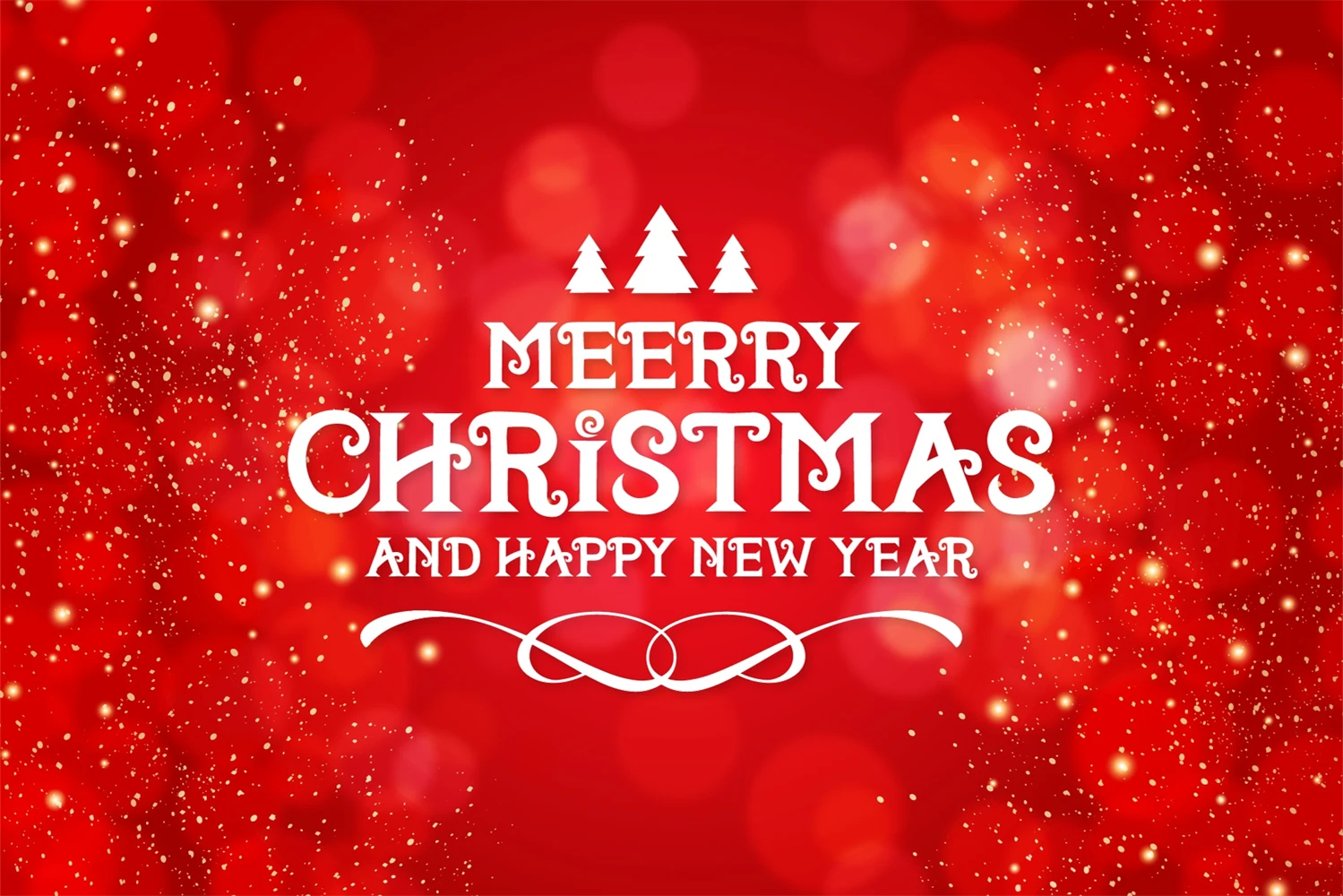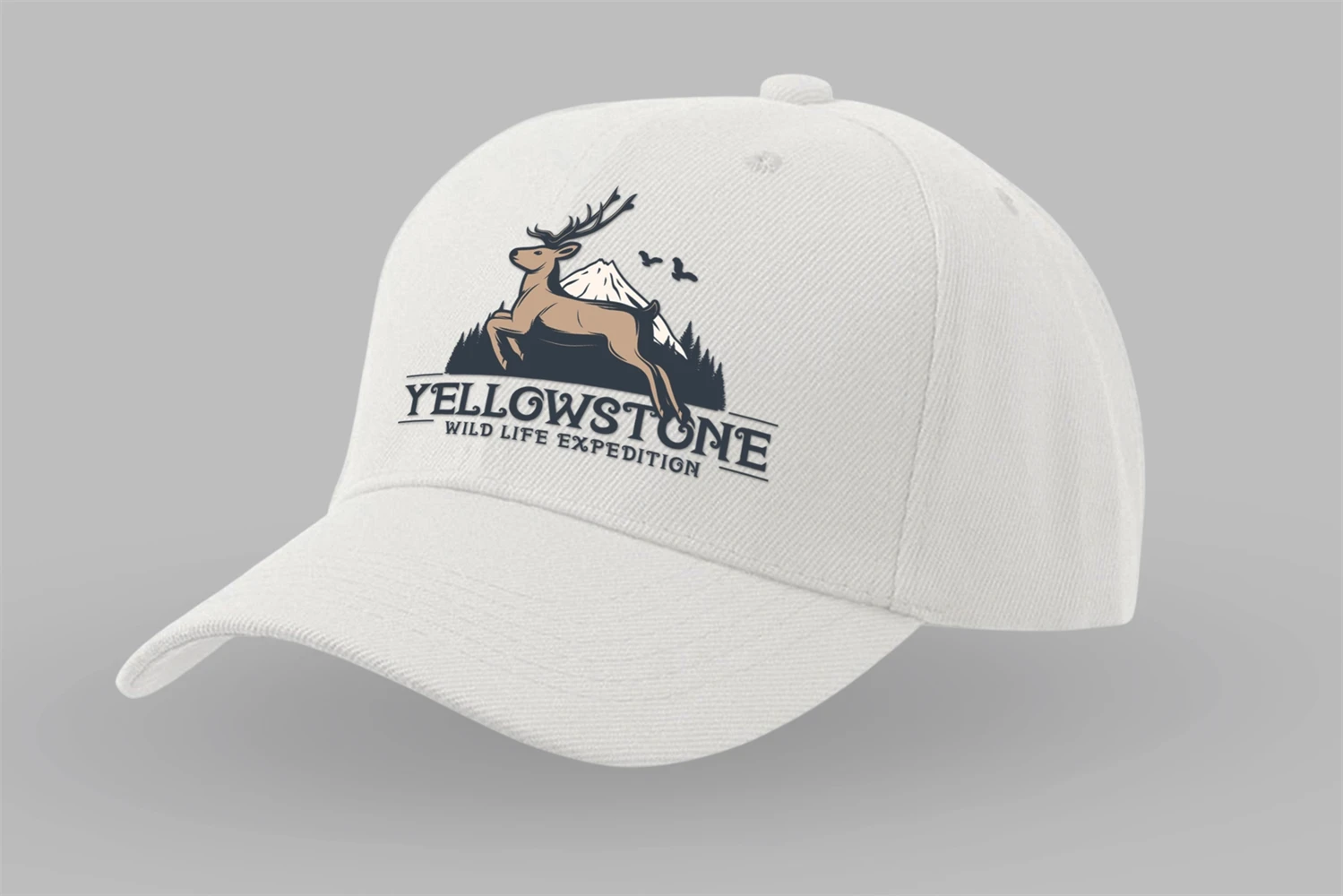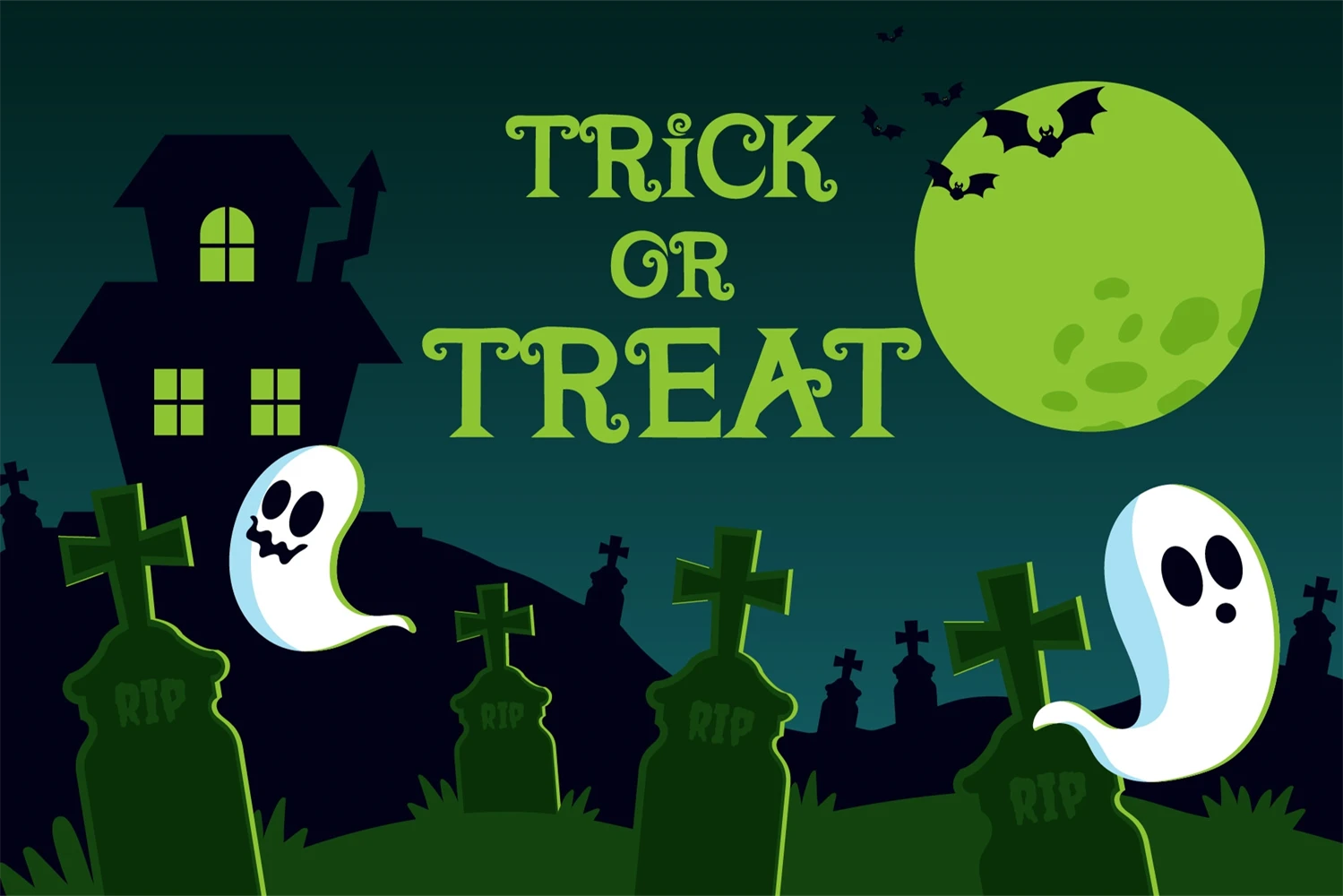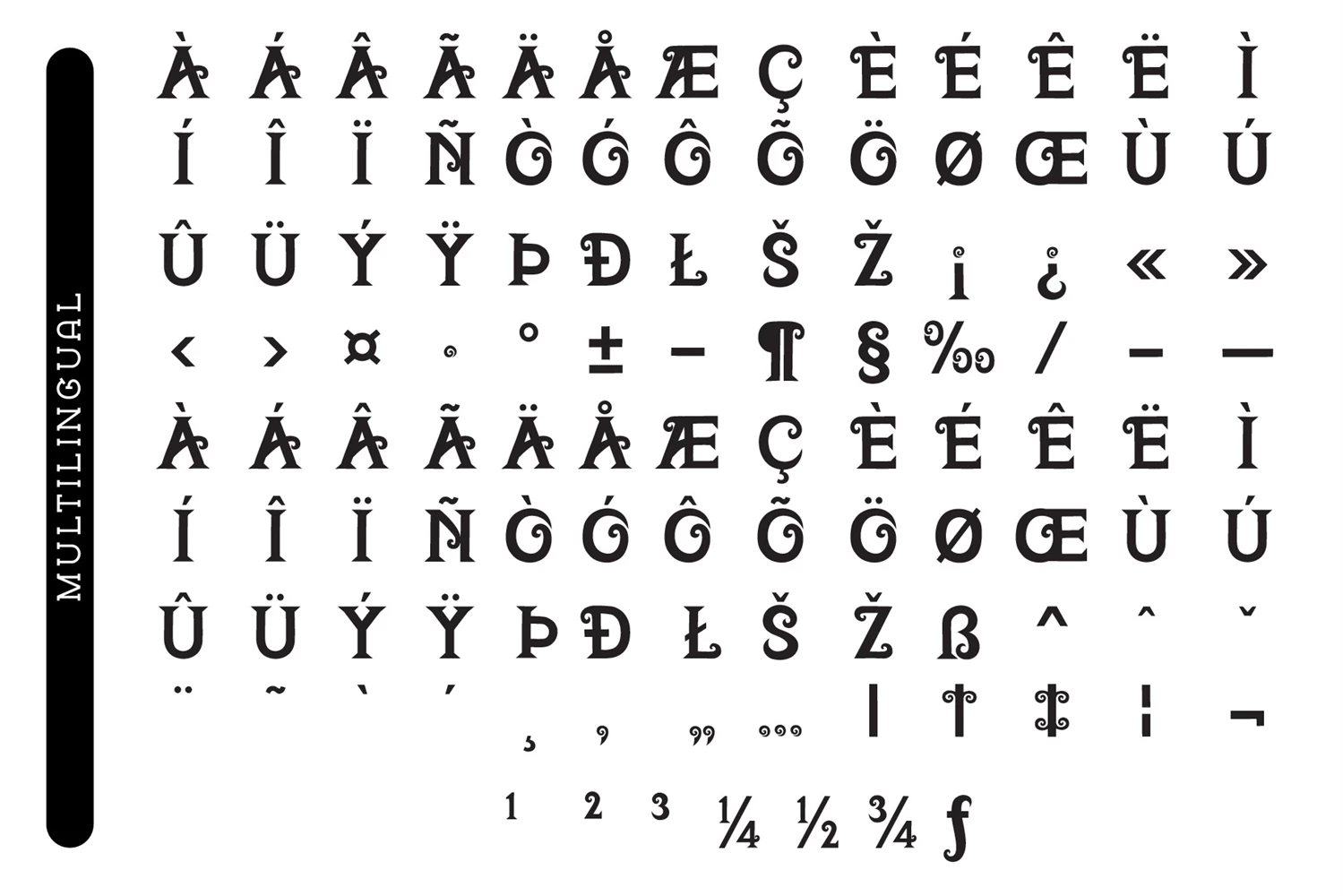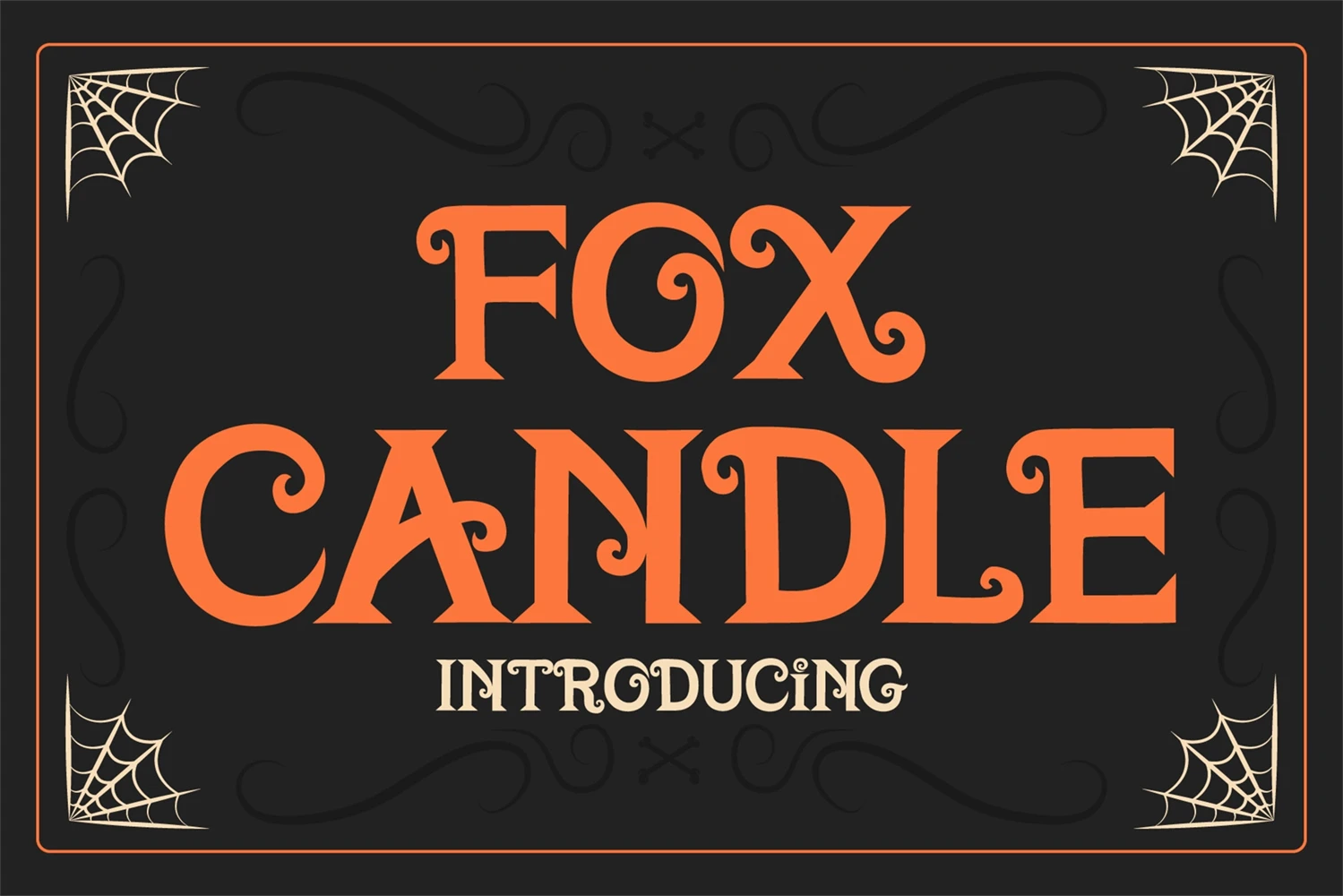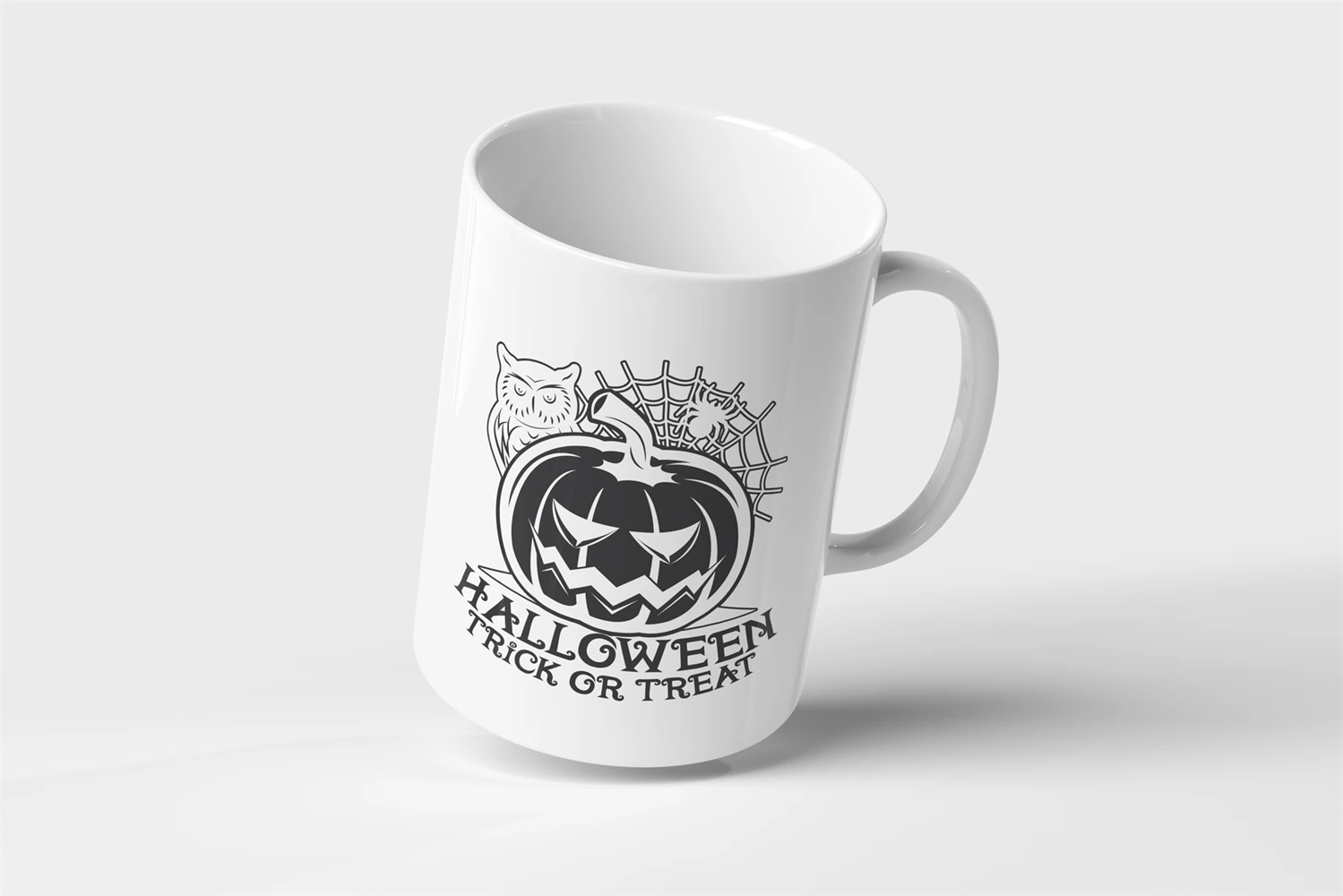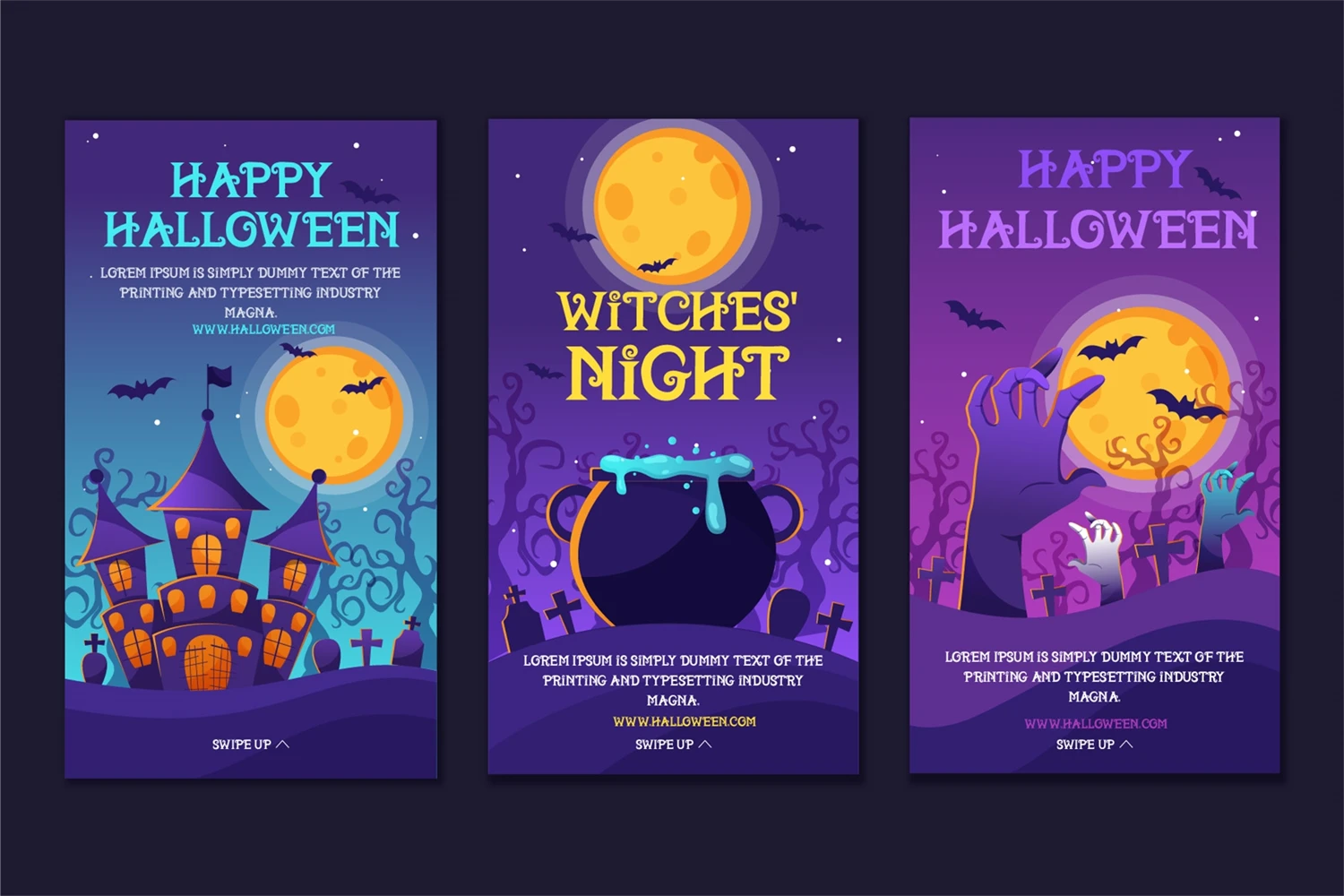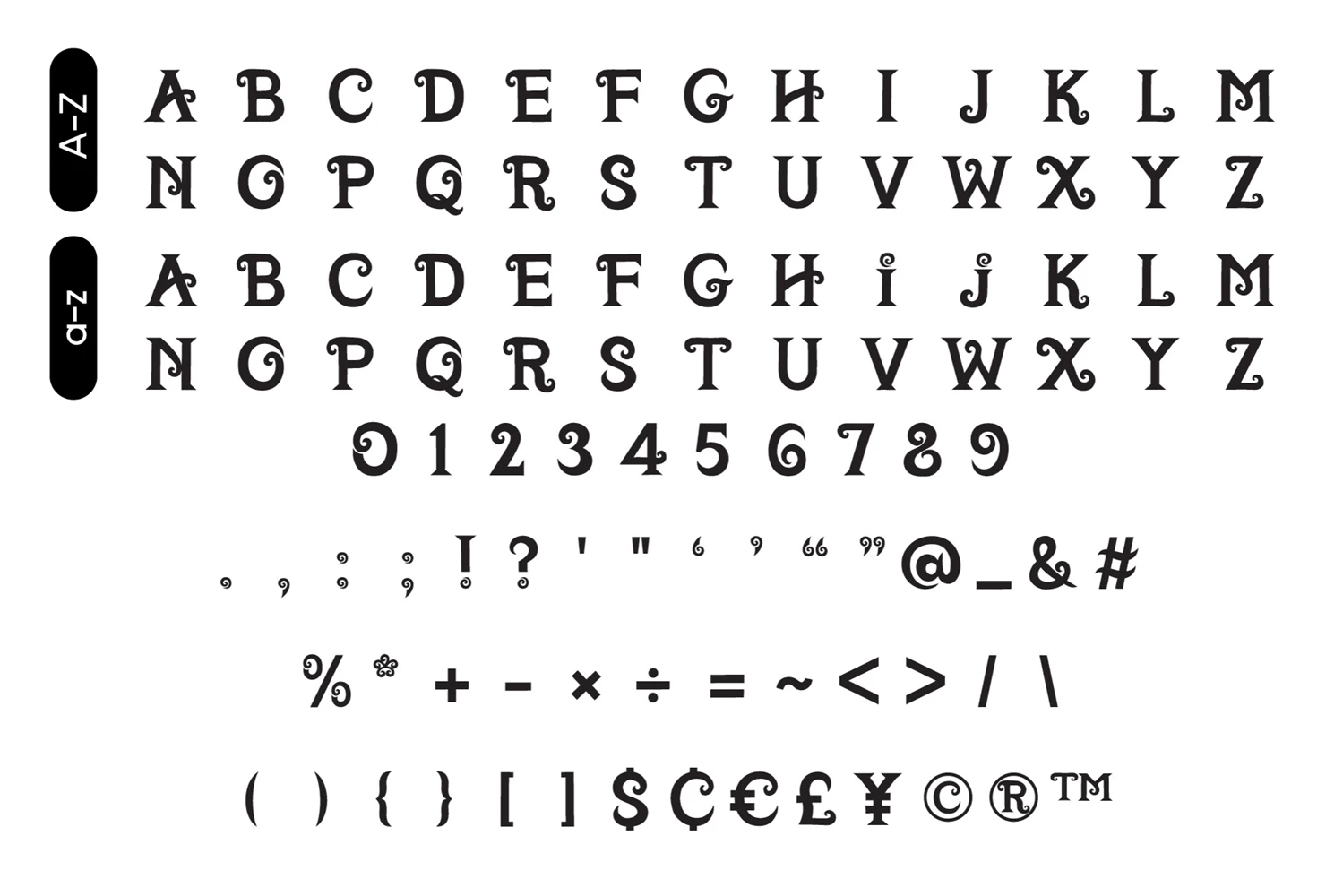
Fox Candle is a vintage and cool slab serif font. Suitable for a variety of designs such as Halloween, Christmas, or even Valentine's themes It can be used to design effectively. and It is perfect for logos, t-shirts, papers, print designs, website headers, photo frames, flyers, music covers, posters, image sliders, and much more.